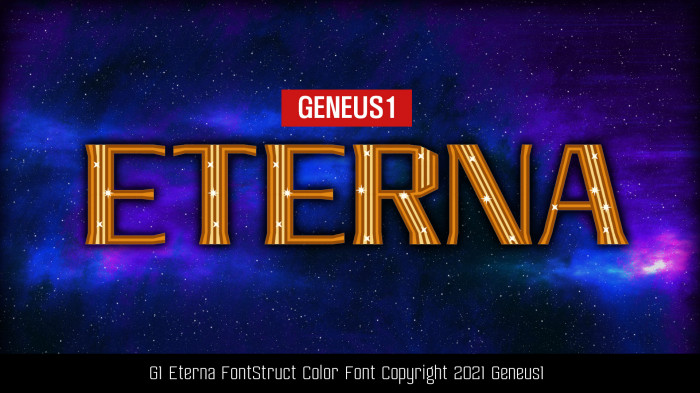
Oooooh!... What a beauty, Master!
@geneus1 - Yet another MARVEL-ous creation.  Congrats, Gene!  :^)
@geneus1: Marvelous(!) new color font with glittering capitals. 10/10
Congratulations! FontStruct Staff have deemed your FontStruction worthy of special mention. “G1 Eterna” is now a Top Pick.
Congrats on the TP! I'm in love with the sparkling uppercase.
Mistakes:
The X and Z have lines.
Can you fix the font please?
@Fgm12345 - Design choices are not "mistakes" and require no fixing.